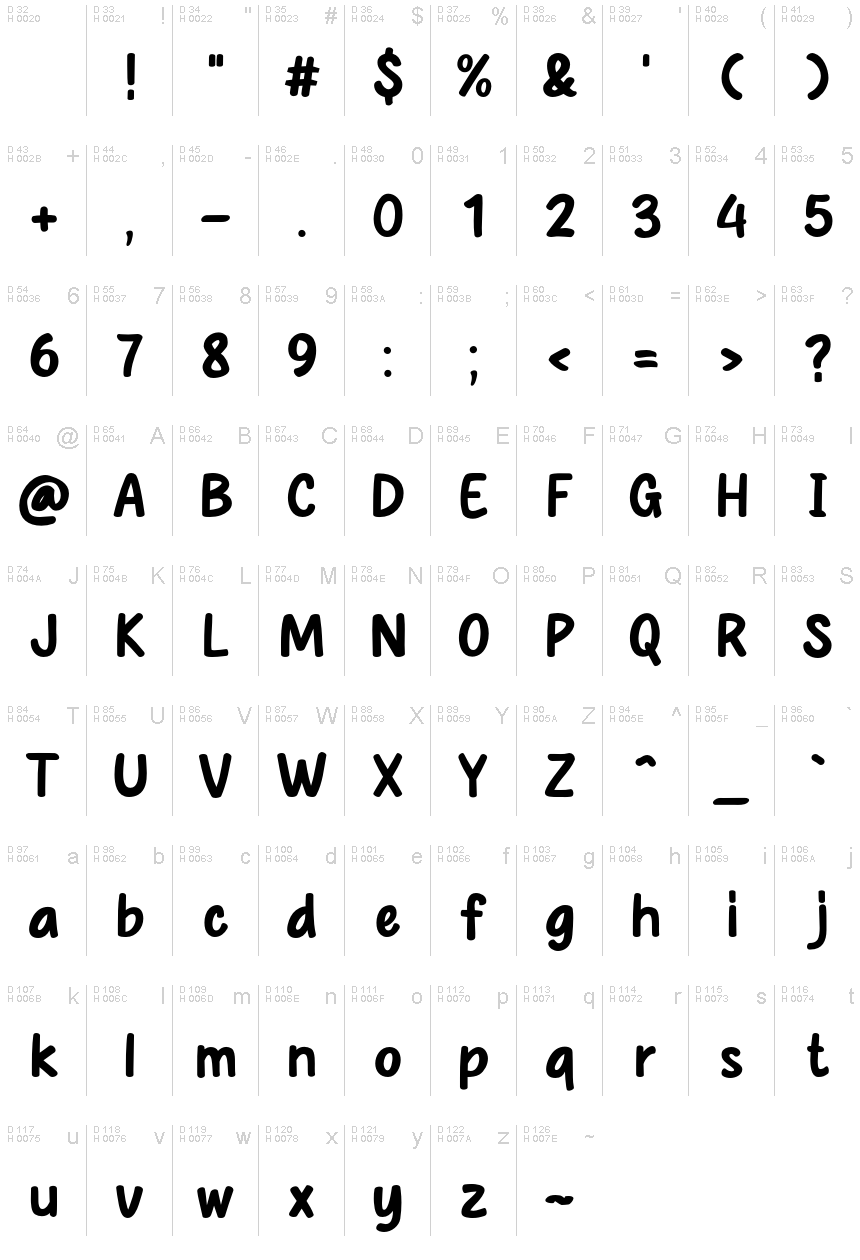
Garfiey
Garfiey font by MJType is a playful cartoon typeface with a whimsical display style. The rounded edges and informal letter structure make it a friendly font that everyone loves seeing. The approachable look of this free font keeps your texts fun, even if they’re sharing information about something serious.